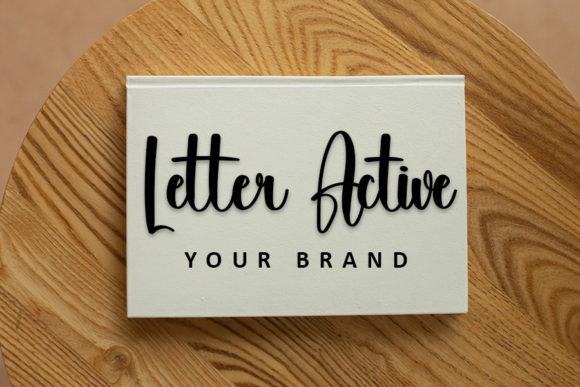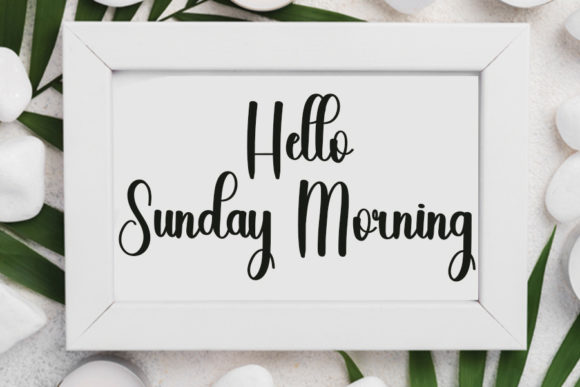
Stronger Font
db-ku.com - Script & Handwritten -- Stronger is an enchanting handwritten font. This versatile typeface has a wide spectrum of applications ranging from greeting cards to headlines and is guaranteed to add a romantic feel to your next project.